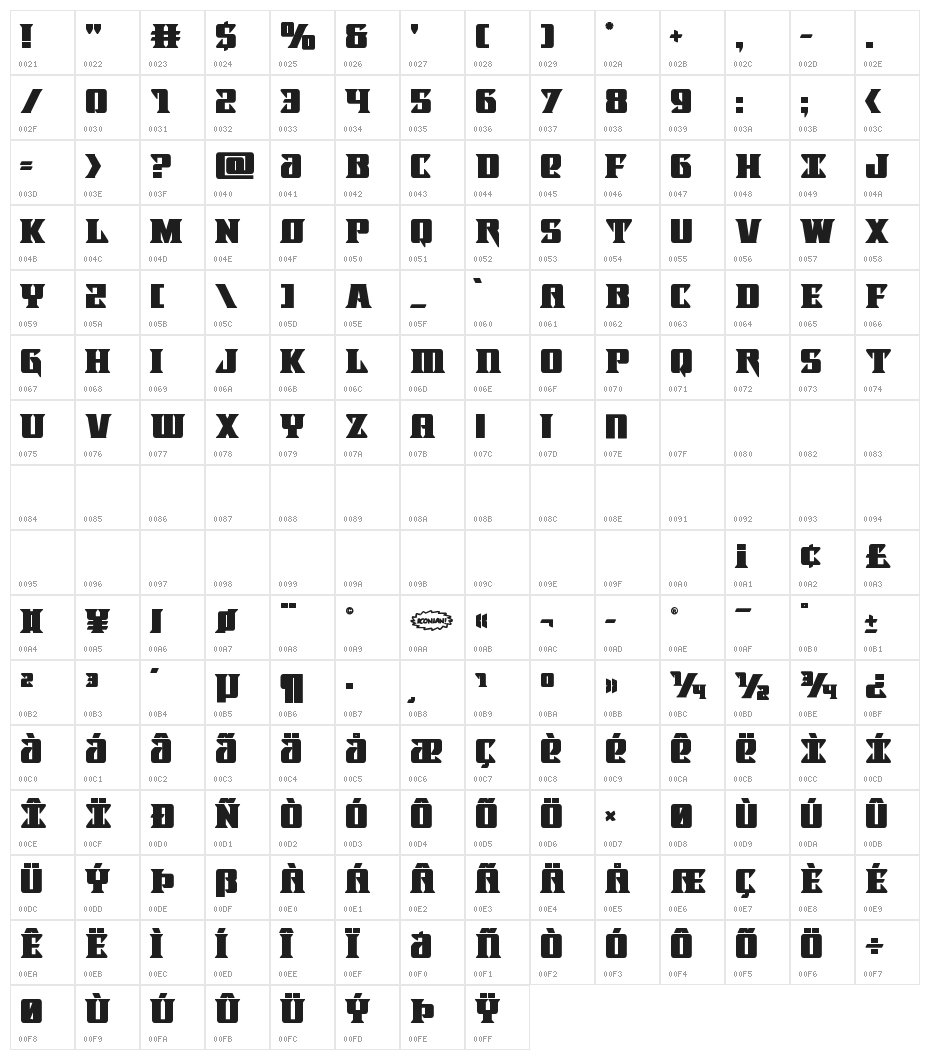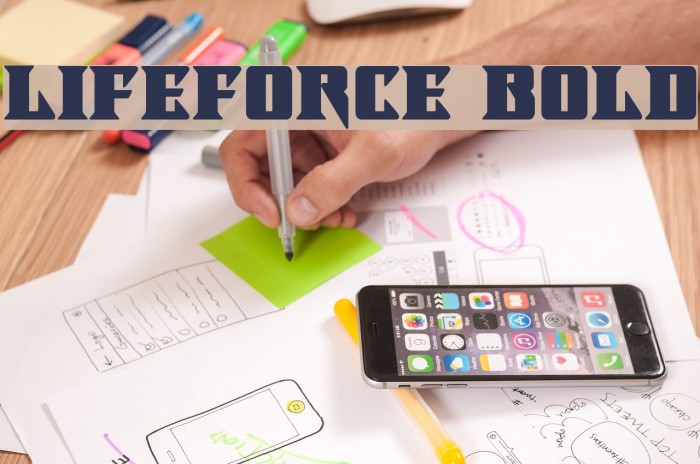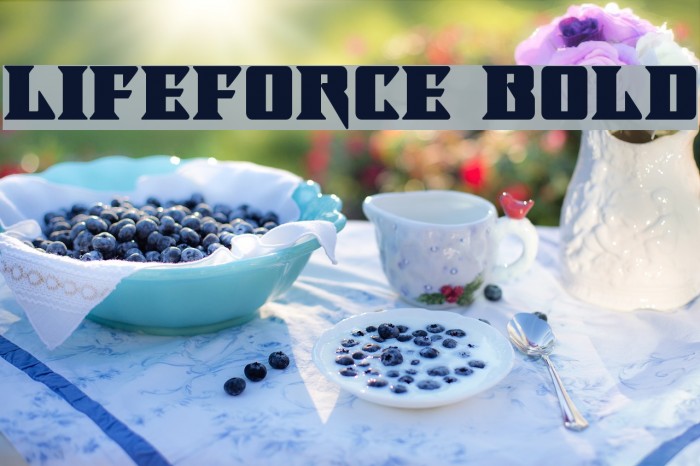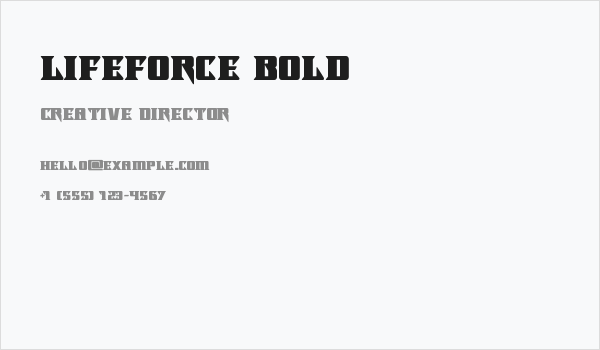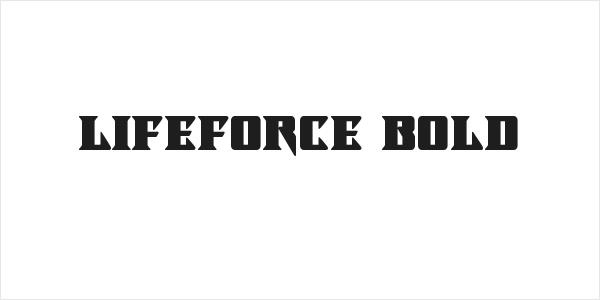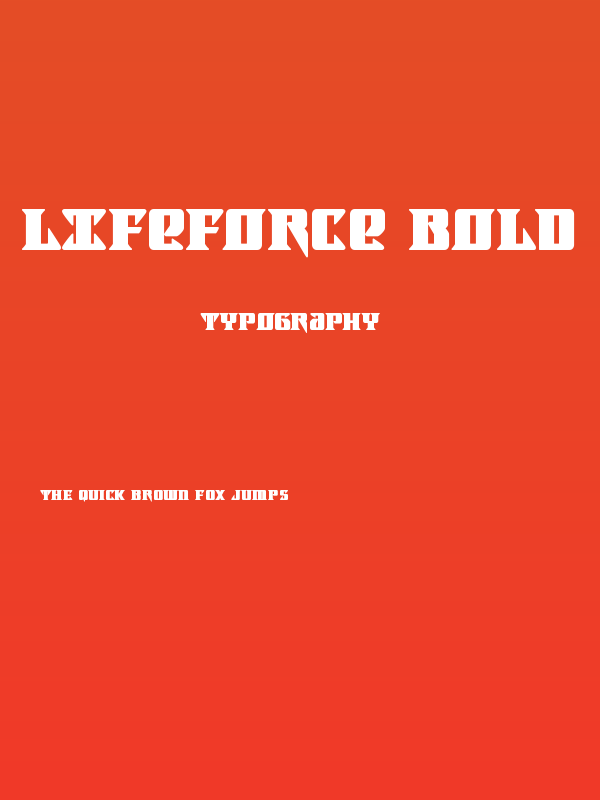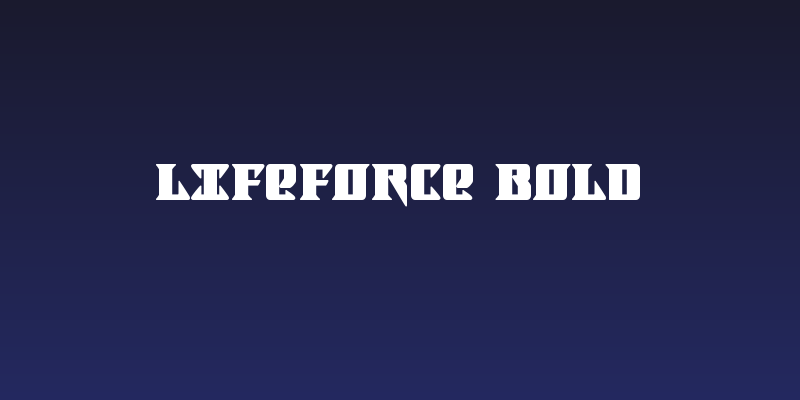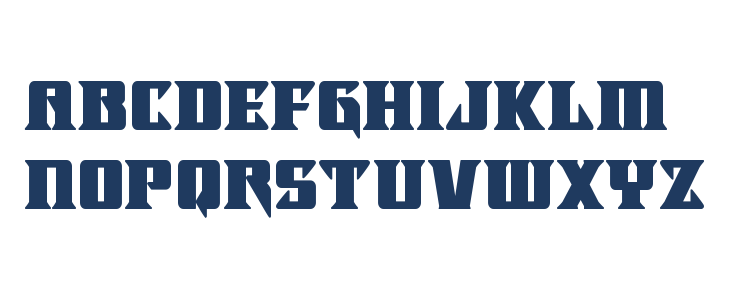
Lifeforce Bold Font
Lifeforce Bold Description
This font features a bold and striking design with a distinct, angular style that commands attention. The characters are heavily stylized with sharp edges and a geometric influence, giving it a modern and edgy appearance. The uppercase letters are particularly prominent, with a consistent height and width that create a uniform look across the alphabet. The numerals and special characters maintain this bold aesthetic, ensuring a cohesive visual identity throughout. The font's unique design makes it ideal for projects that require a strong visual impact.